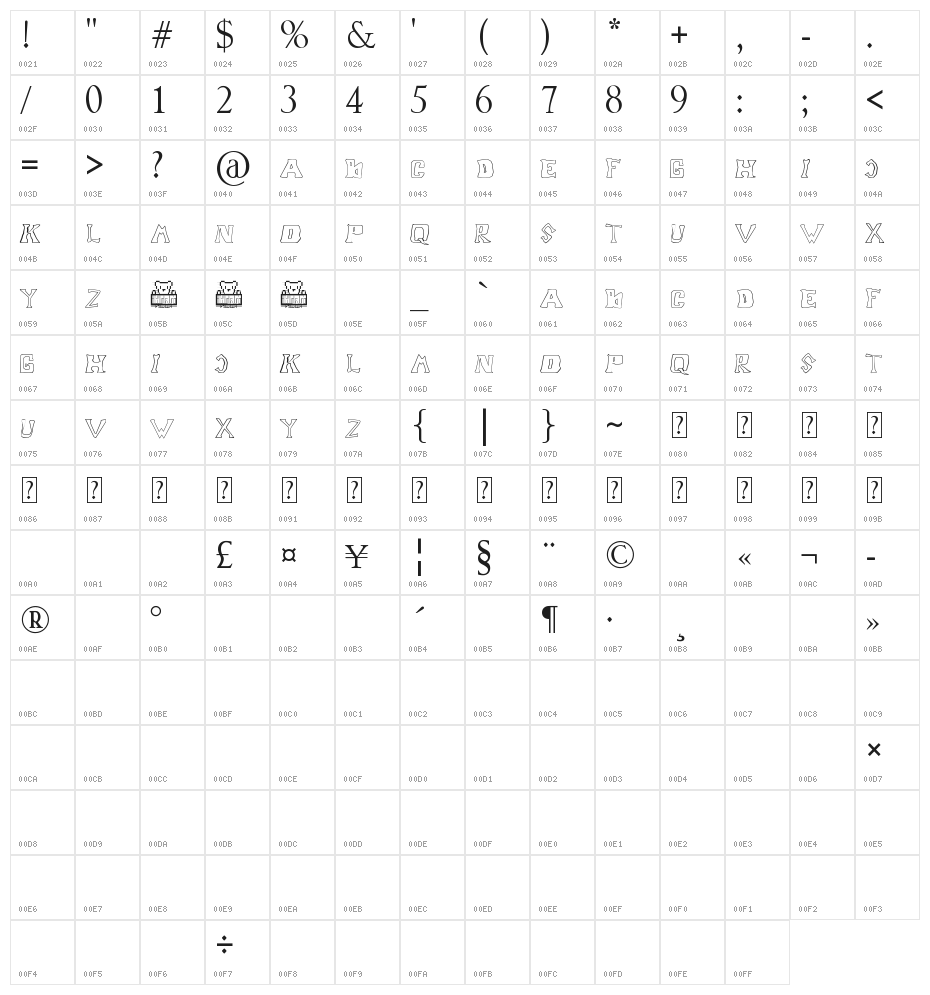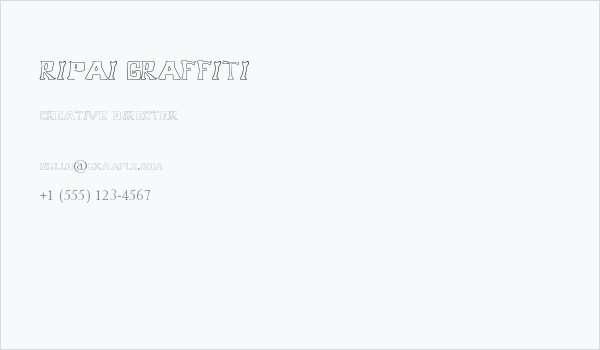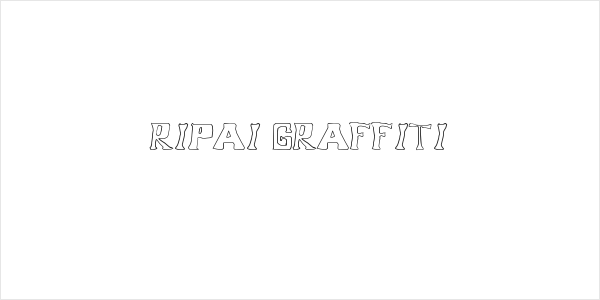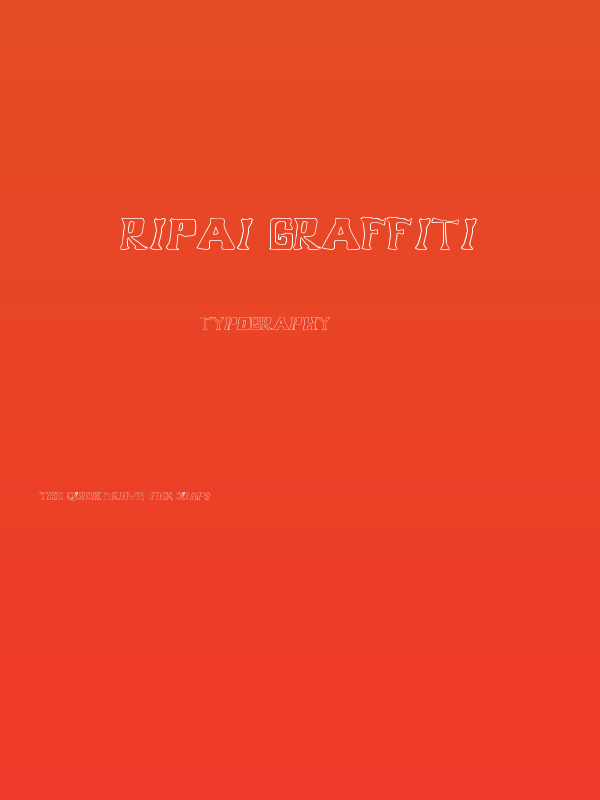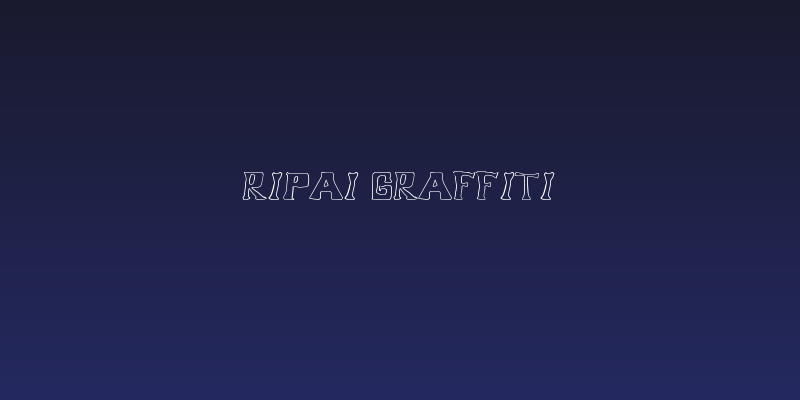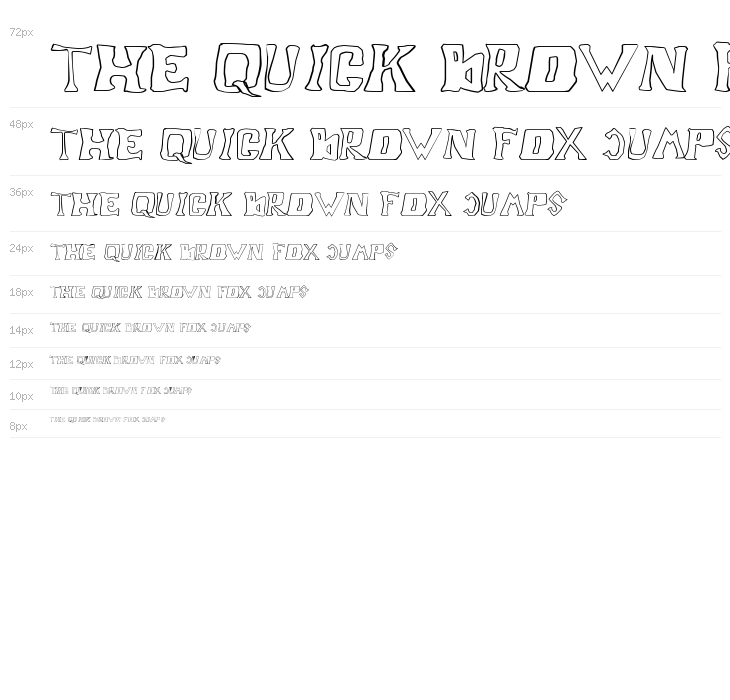
Ripai Graffiti Font
Ripai Graffiti Description
This font features a bold and edgy graffiti-inspired style, characterized by its angular and dynamic letterforms. The uppercase letters exhibit a playful yet aggressive aesthetic, with sharp edges and irregular shapes that mimic street art. The lowercase letters maintain this theme, offering a cohesive look that is both urban and artistic. The numbers are bold and clear, ensuring readability while maintaining the overall style. Special characters are included, adding versatility for creative projects. This font is perfect for designs that aim to capture a rebellious or youthful spirit.
Overall StyleUrban, Artistic, Edgy
Proposed ProjectsIdeal for street art designs, urban-themed posters, music album covers, and edgy branding projects.